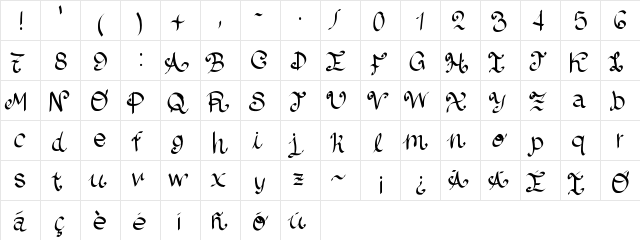
LazyDog Medium
Design Context for LazyDog Typeface
LazyDog is a composed and adaptable typeface that performs quietly and consistently across a wide range of design contexts.